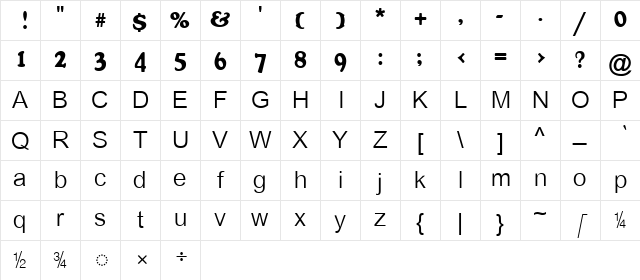
Complete TAU_Elango_Guntalakesi Regular glyph index. Displaying only characters natively supported by TAU_Elango_Guntalakesi Regular font.
TAU_Elango_Guntalakesi is a composed and adaptable typeface that performs quietly and consistently across a wide range of design contexts.